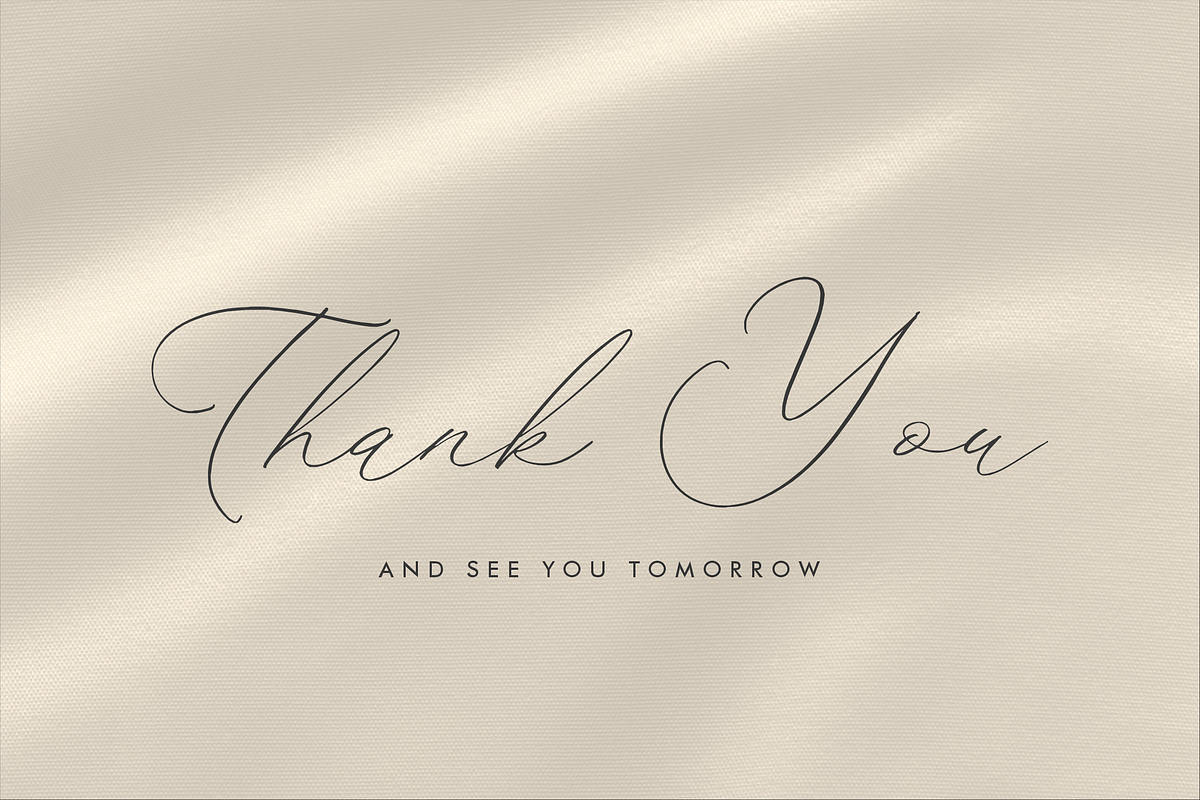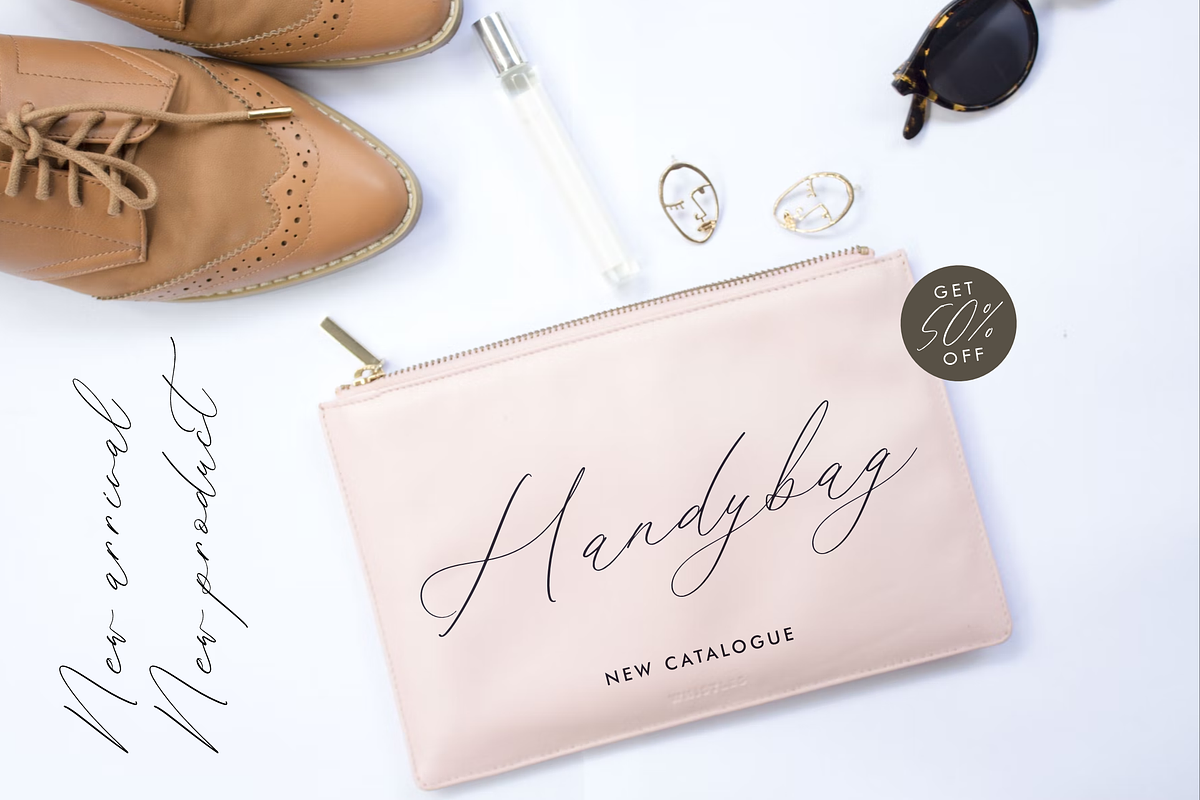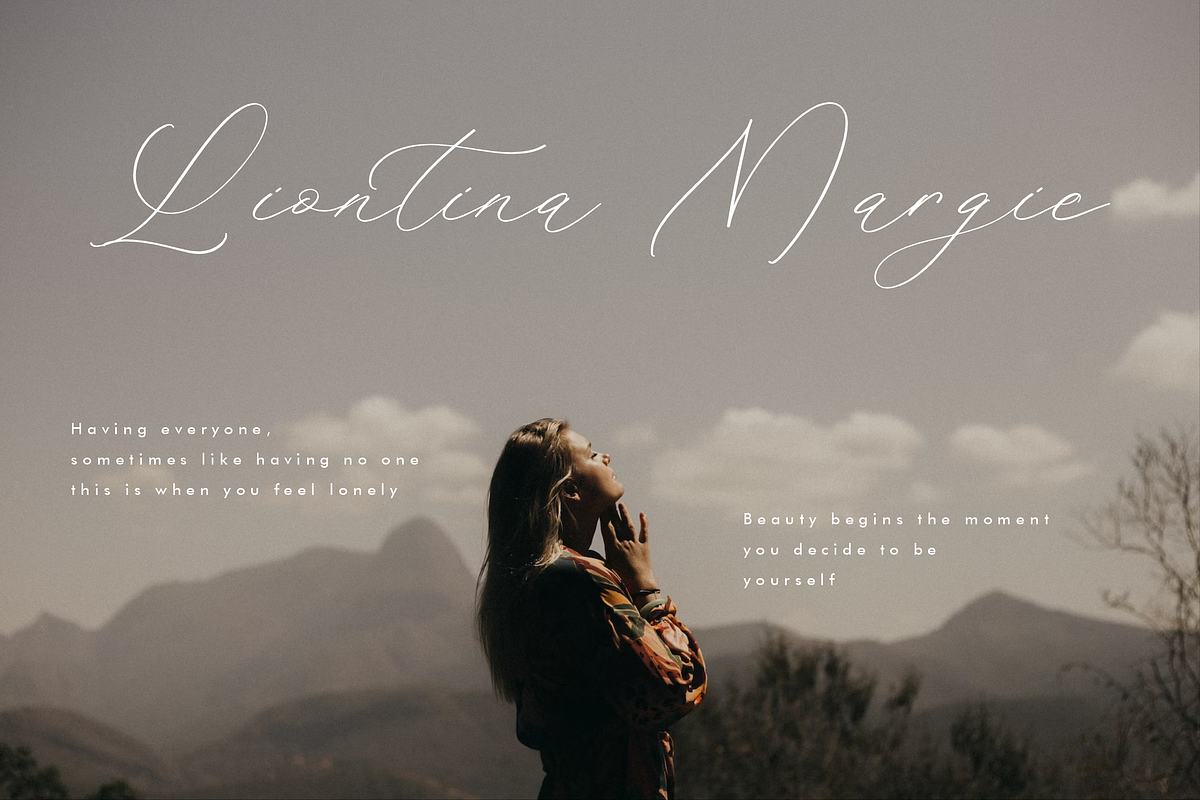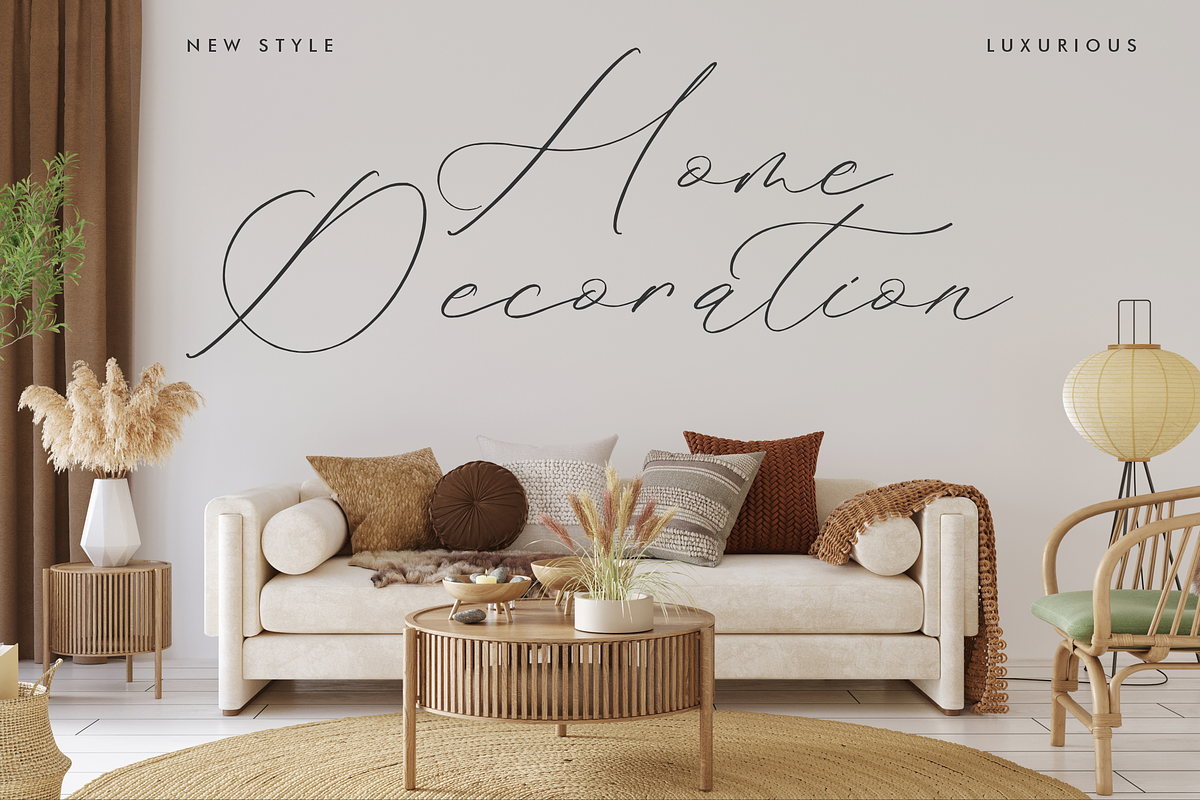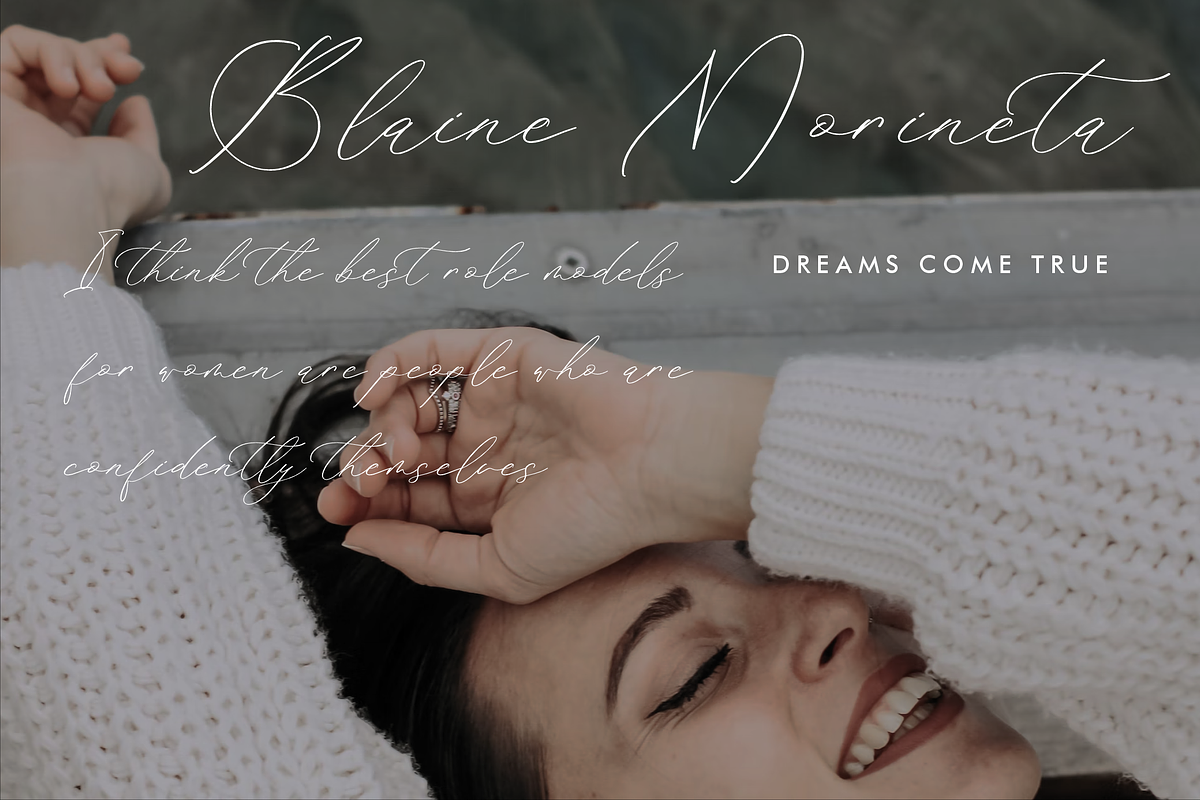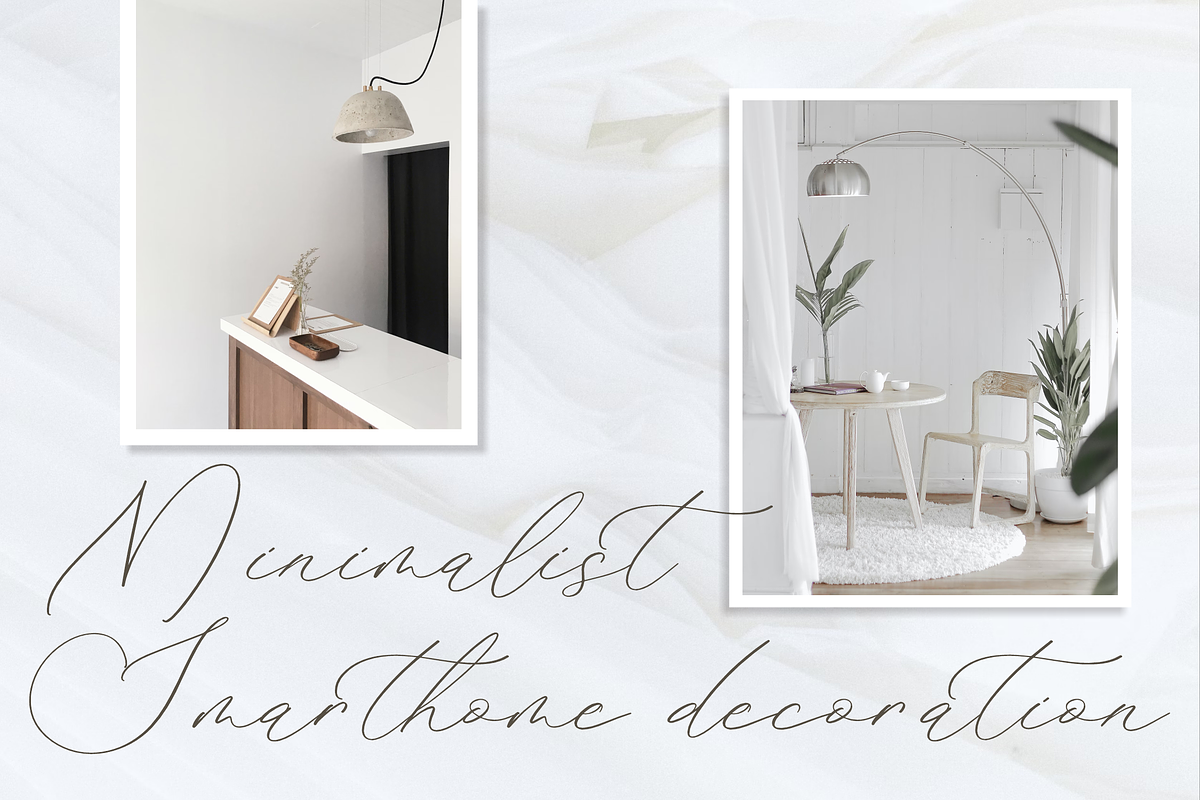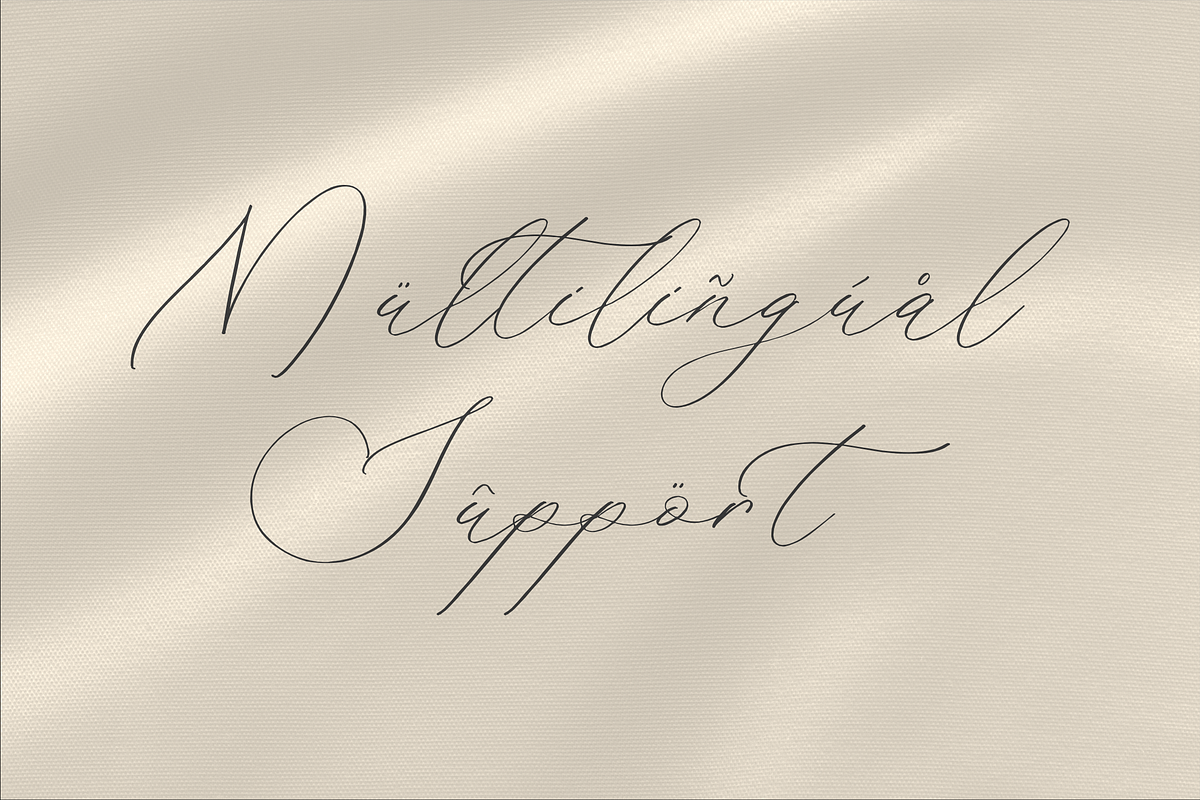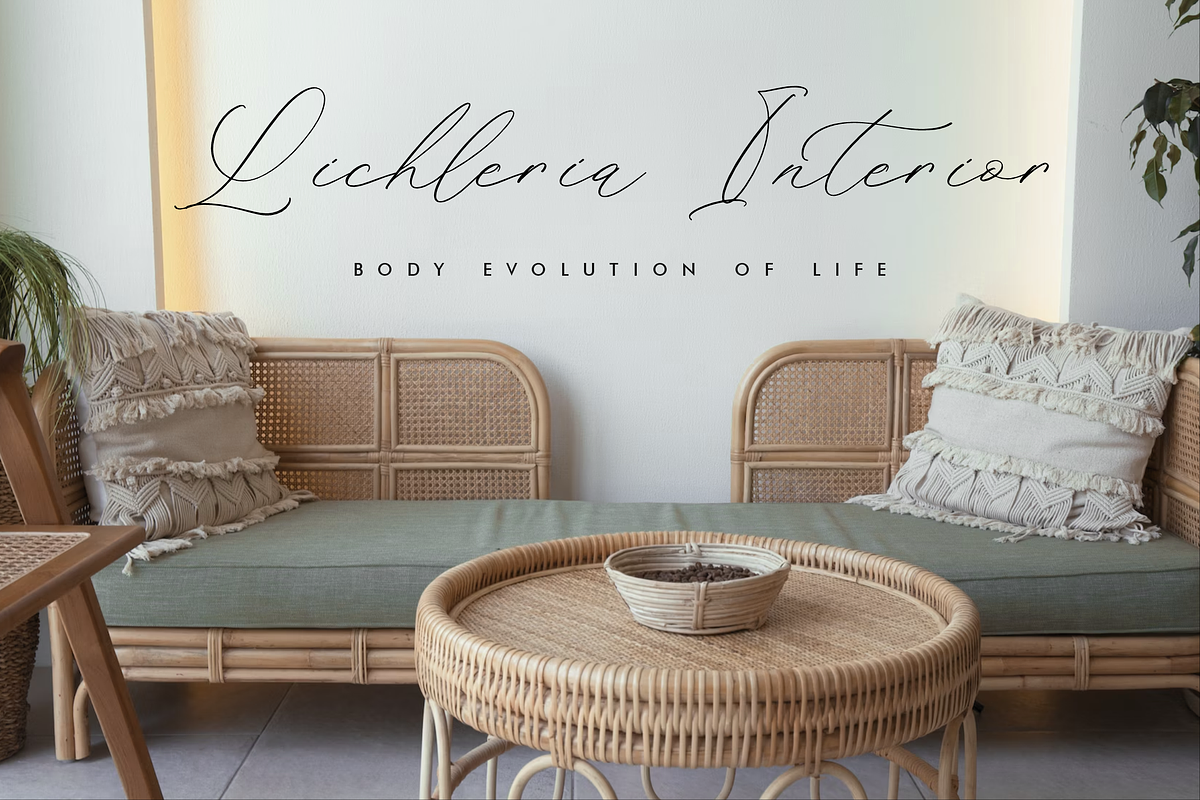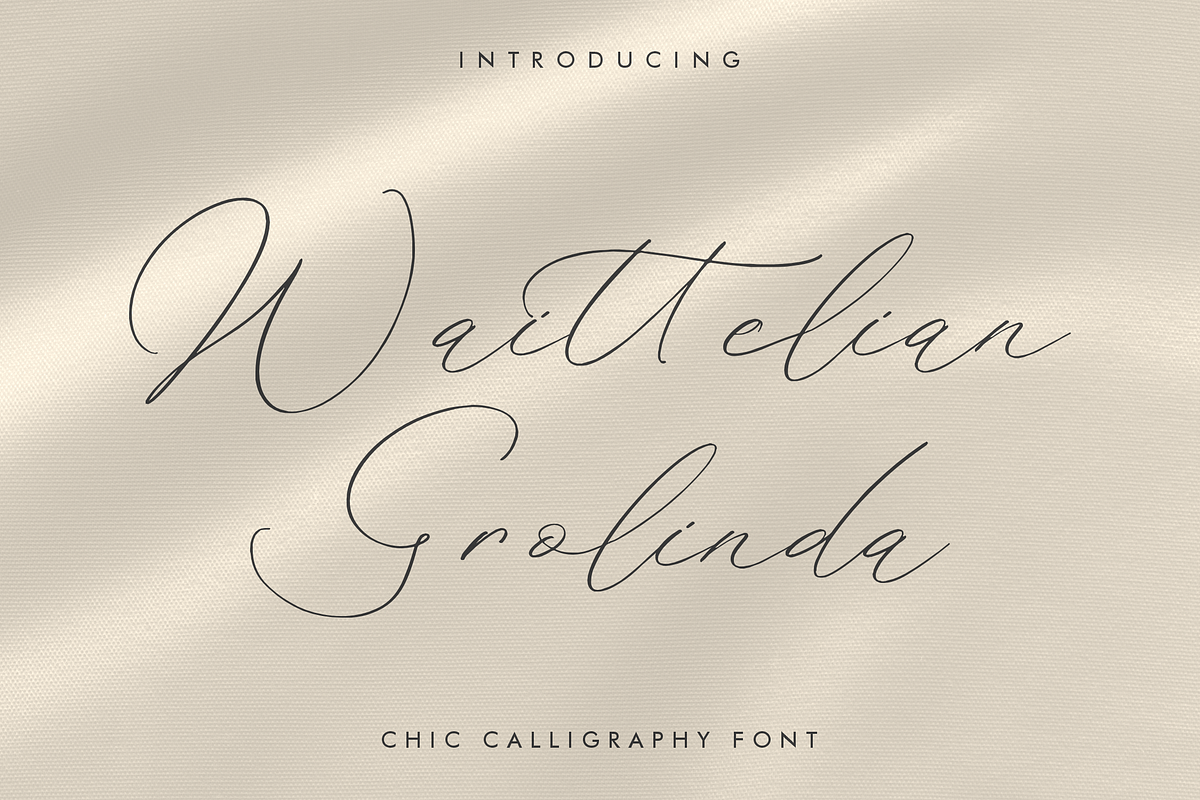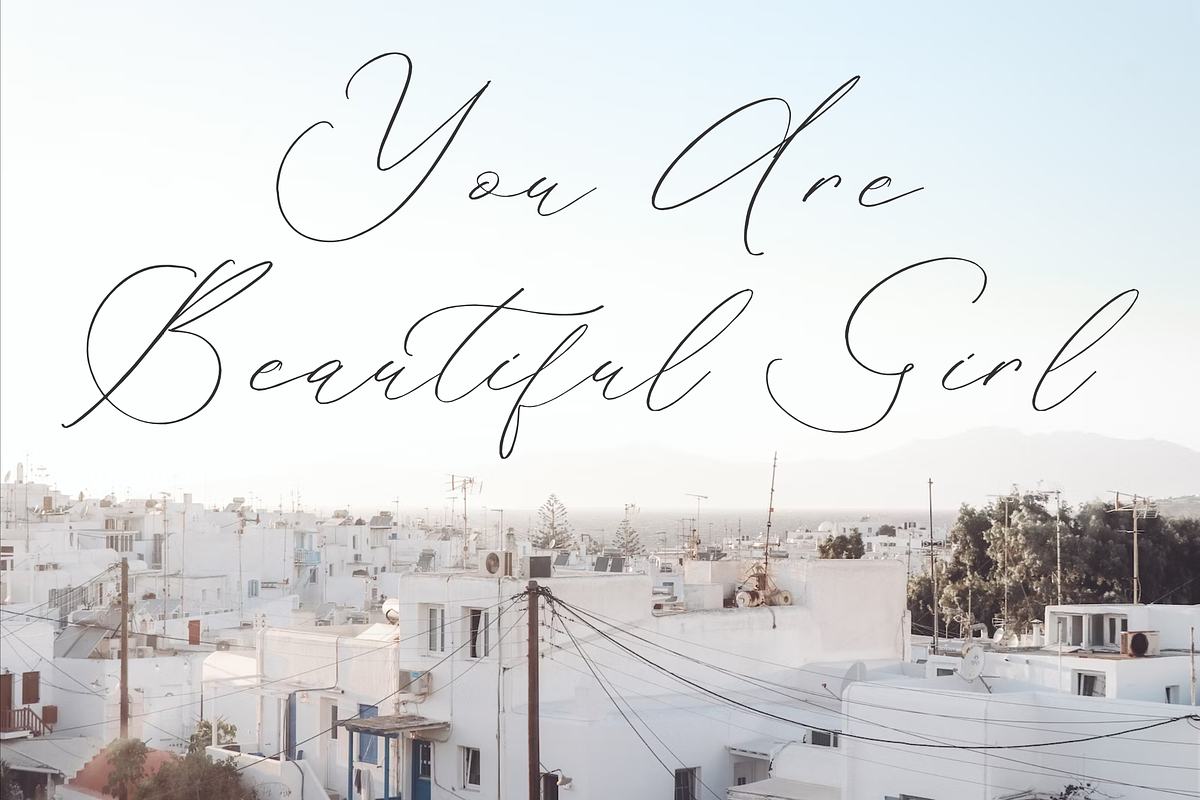
Waittelian Grolinda
Proudly present Waittelian Grolinda - Chic Calligraphy Font , created by Storytype, A luxury script that has own unique style & modern look. This typeface is perfect for an elegant & luxury logo, book or movie title design, fashion brand, magazine, clothes, lettering, quotes, and so much more.